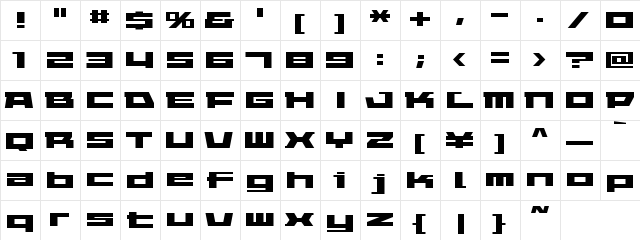
ELEPHANT A Regular
Design Context for ELEPHANT Typeface
ELEPHANT offers clean, dependable letterforms without strong stylistic allegiance, making it a practical choice for designers who need flexibility.